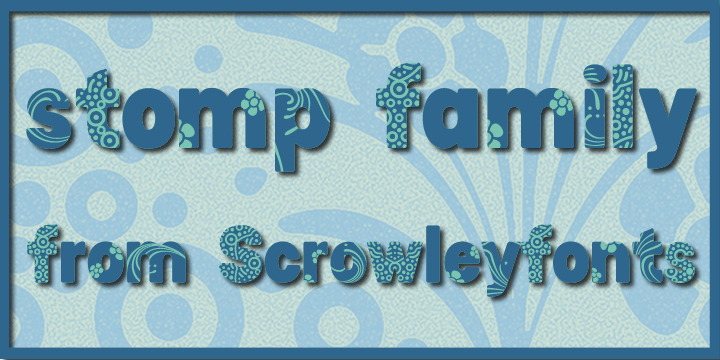
Stomp Font Free Download – If you're looking for a bold, modern typeface that commands attention, Stomp Font is an excellent choice. However, please note that you need to purchase this font for commercial use. You can download it for free for testing purposes only.
Where Can You Use Stomp Font?
Stomp Font is perfect for:
Logo designs (especially for sports brands, gaming, and entertainment)
Posters & flyers (its strong presence makes it ideal for promotions)
Social media graphics (great for bold captions and headers)
Website headings (adds a dynamic and energetic feel)
Why Is Stomp Font Exciting?
Stomp Font stands out with its aggressive, high-impact design, making it perfect for projects that need a powerful visual statement. Its sharp edges and bold weight ensure maximum readability while maintaining a modern aesthetic.
Stomp Font Family
The Stomp Font family may include variations such as:
Stomp Bold
Stomp Outline
Stomp Italic
Stomp Condensed